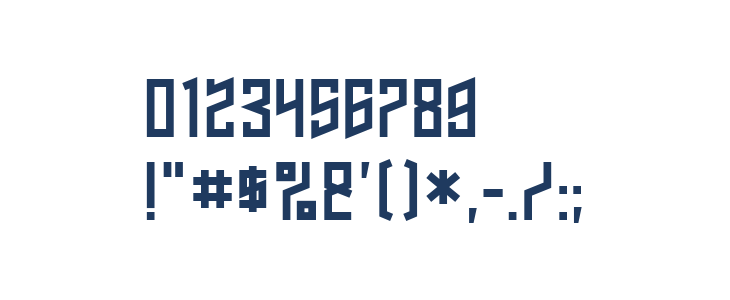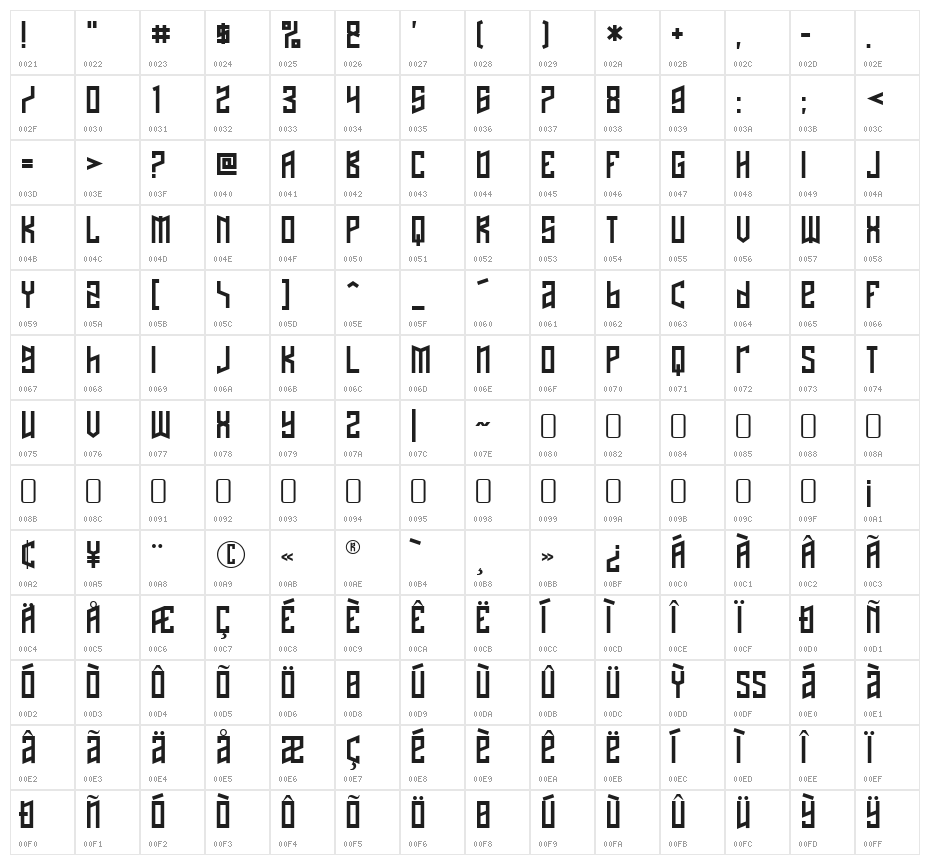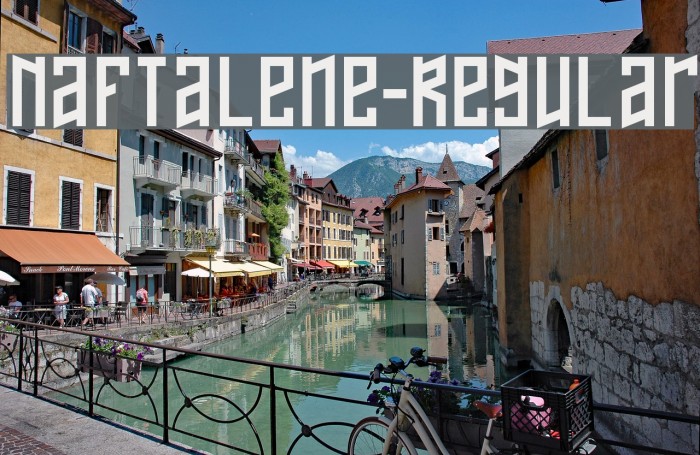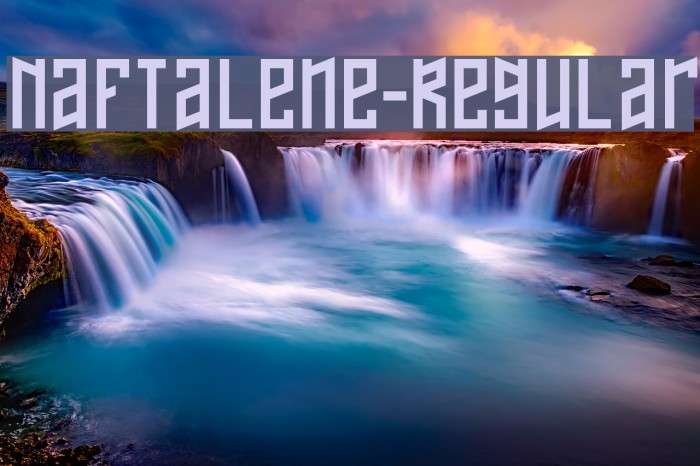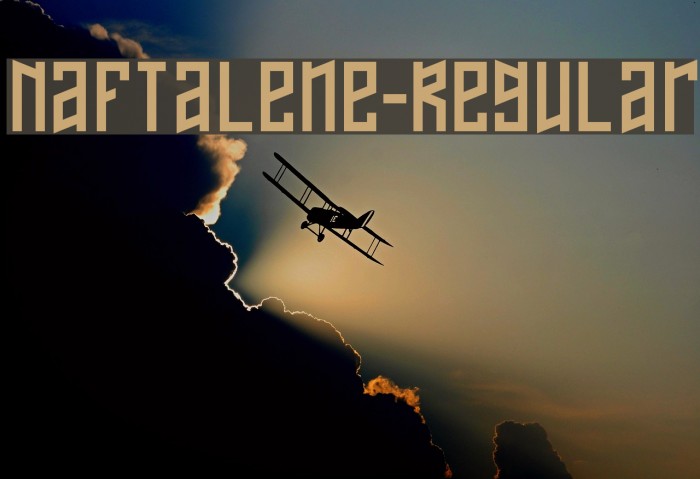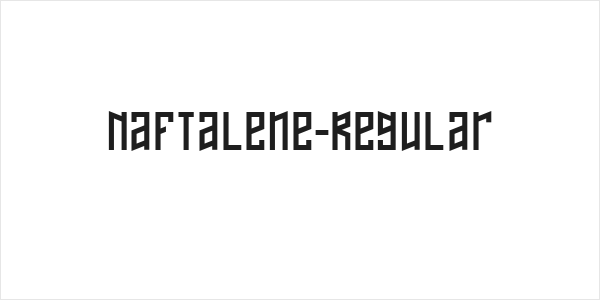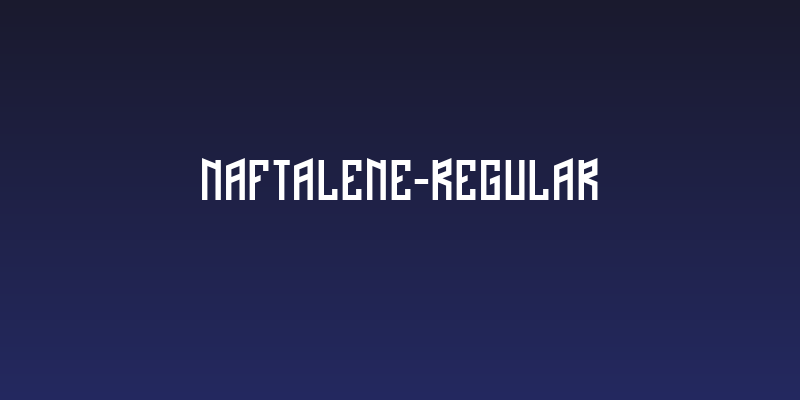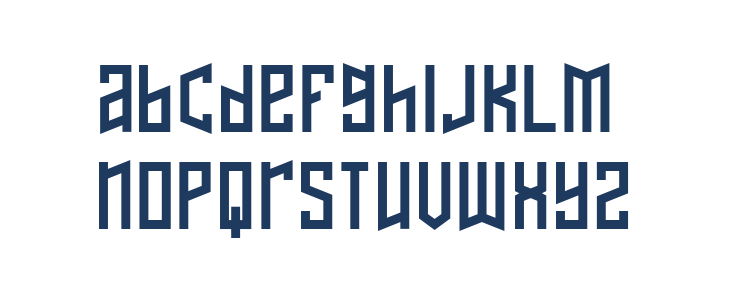
Naftalene-Regular Font
Naftalene-Regular Description
This font features a bold and geometric design with sharp angles and a distinct, futuristic appearance. The characters are constructed with consistent stroke widths, giving it a uniform and cohesive look. The uppercase and lowercase letters share a similar structure, enhancing readability while maintaining a unique style. The numbers and special characters are designed to match the angular and modern aesthetic, making this font suitable for various creative applications. Its striking appearance makes it ideal for projects that require a strong visual impact.
| Proposed Projects | Ideal for branding, posters, video game graphics, and sci-fi themed projects. |